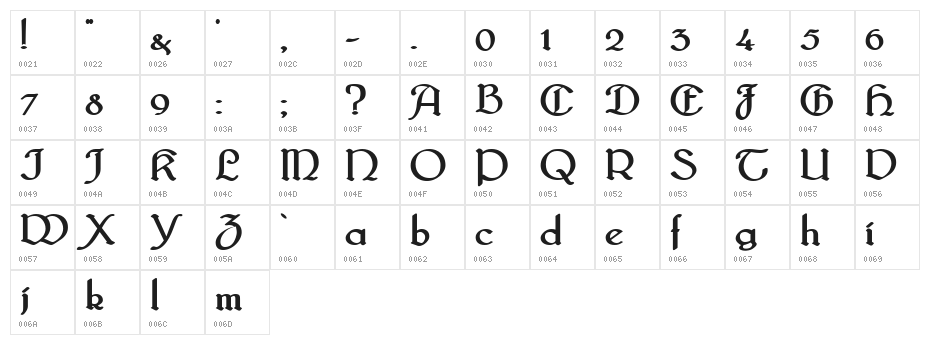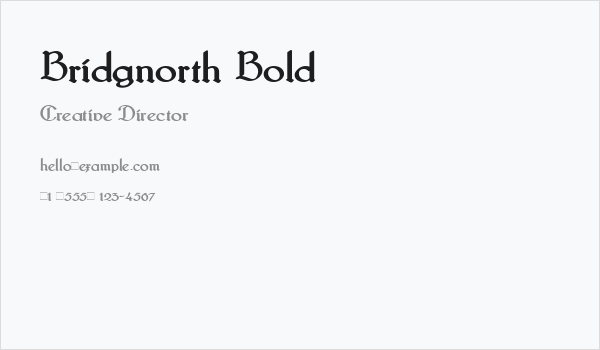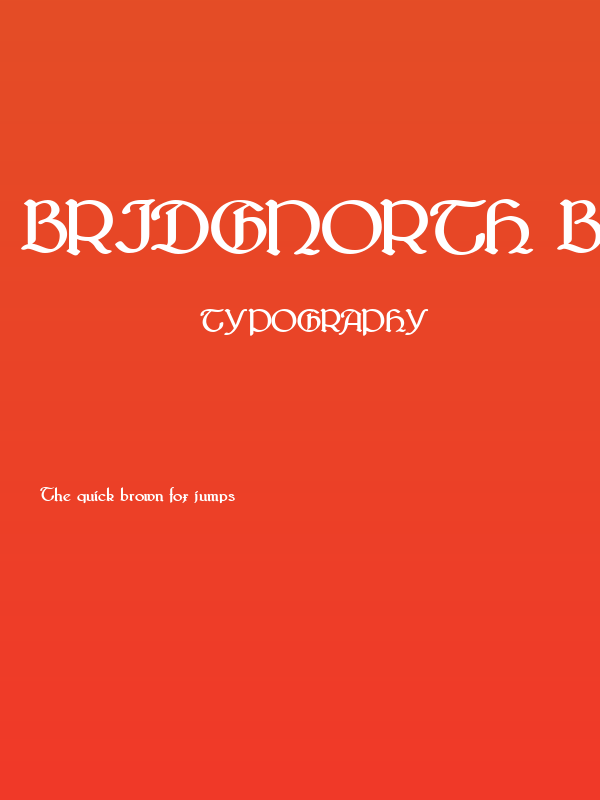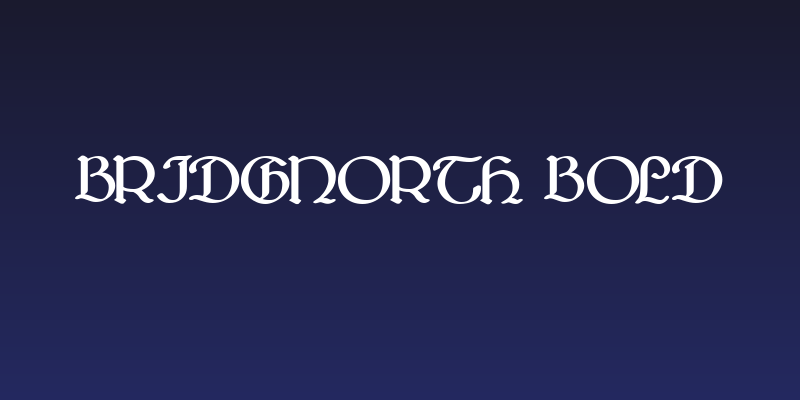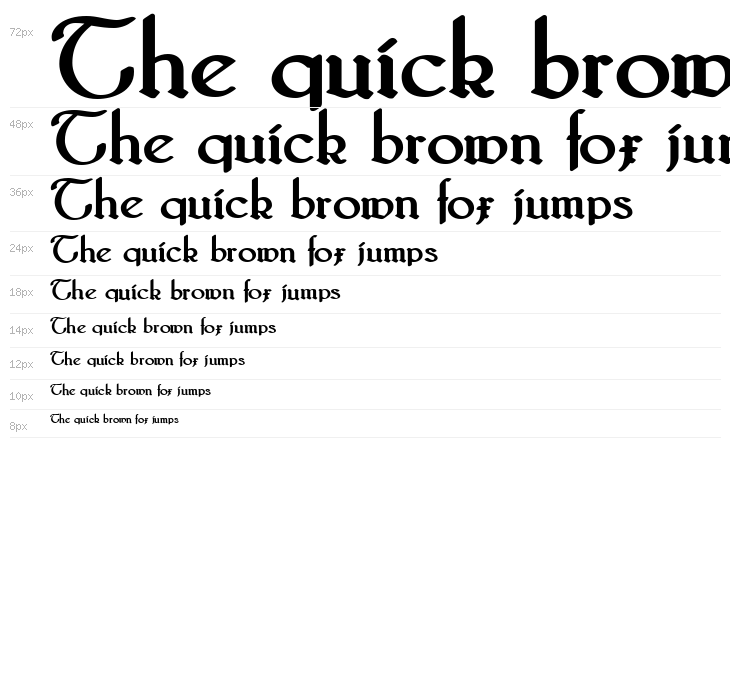
Bridgnorth Bold Font
Bridgnorth Bold Description
This font exhibits a bold and dramatic style, reminiscent of traditional blackletter typefaces. The characters feature sharp, angular lines with intricate curves, giving it a medieval and gothic appearance. The uppercase letters are particularly ornate, with flourishes that extend beyond the baseline and cap height. The lowercase letters maintain a consistent style, with some characters like 'g' and 'y' having distinctive descenders. The numerals are bold and maintain the same decorative style, ensuring consistency across the typeface. Special characters are also designed with the same attention to detail, making this font suitable for creating a cohesive and impactful visual identity.
| Use Case | Headlines, Logos, Decorative text |
| Proposed Projects | Ideal for projects requiring a medieval or gothic aesthetic, such as fantasy book covers, themed event invitations, or historical signage. |